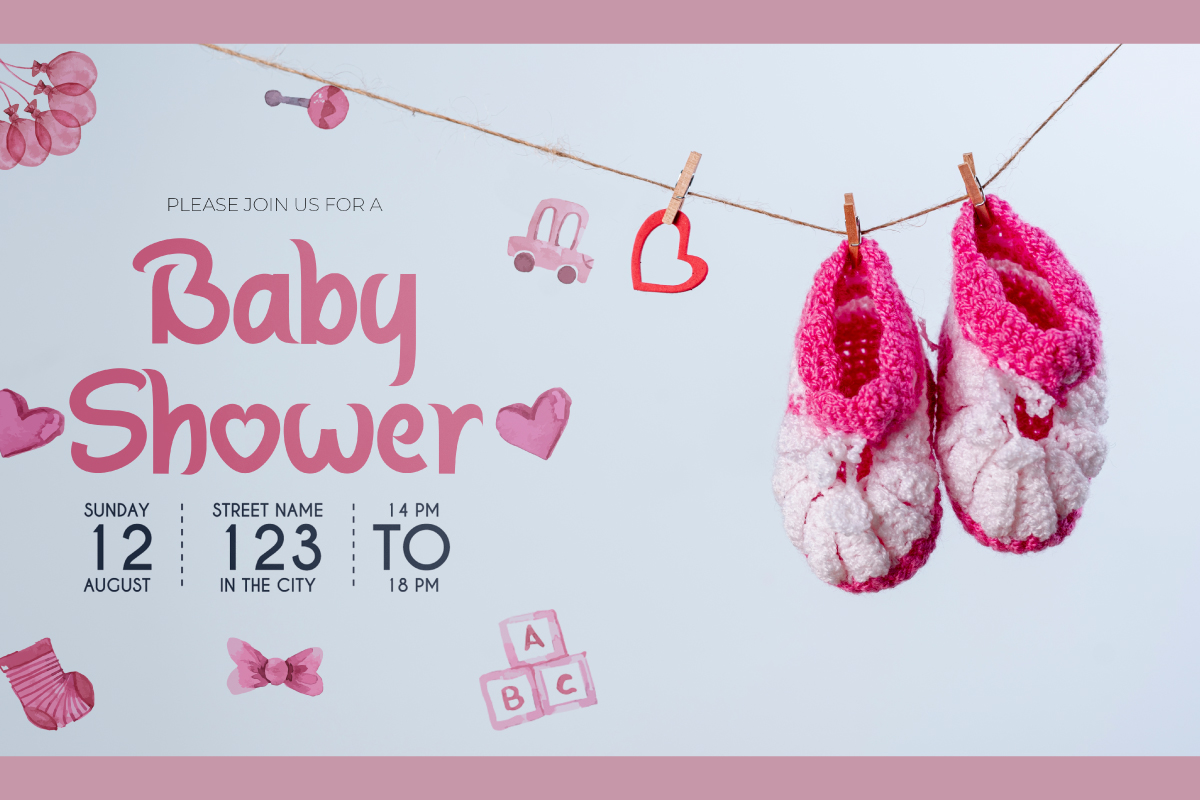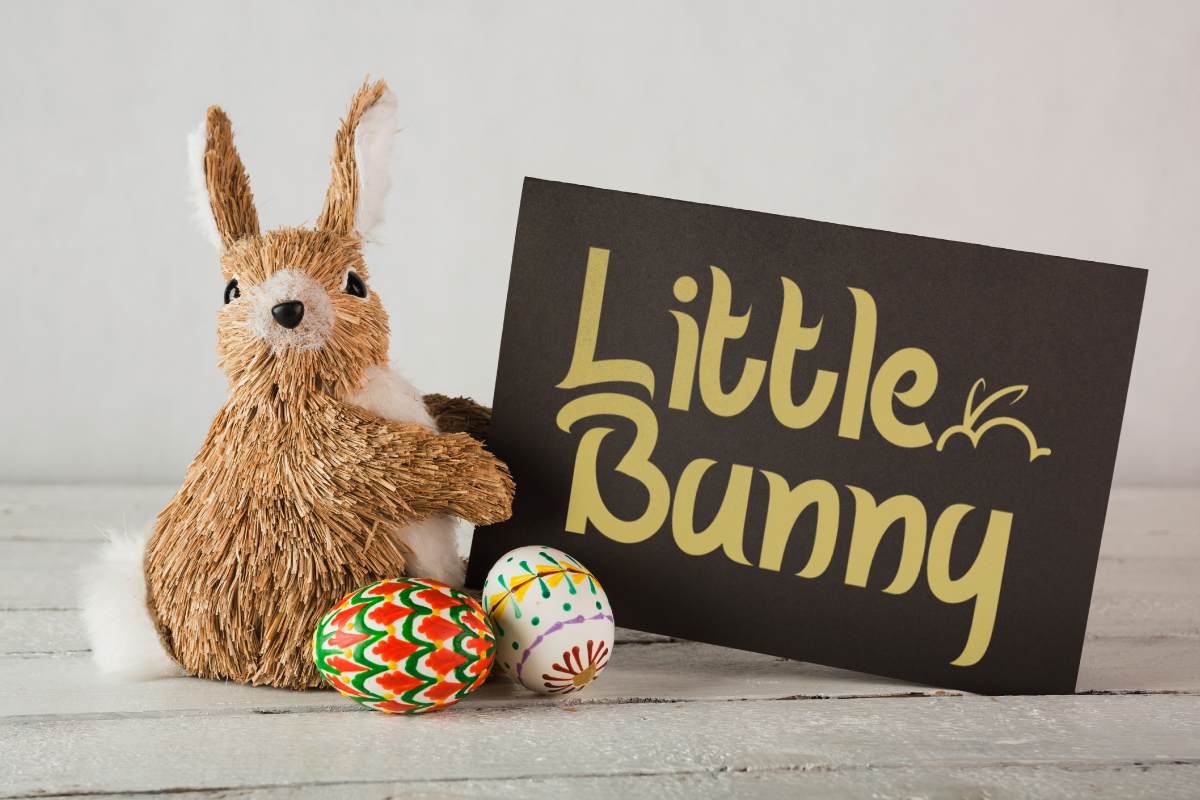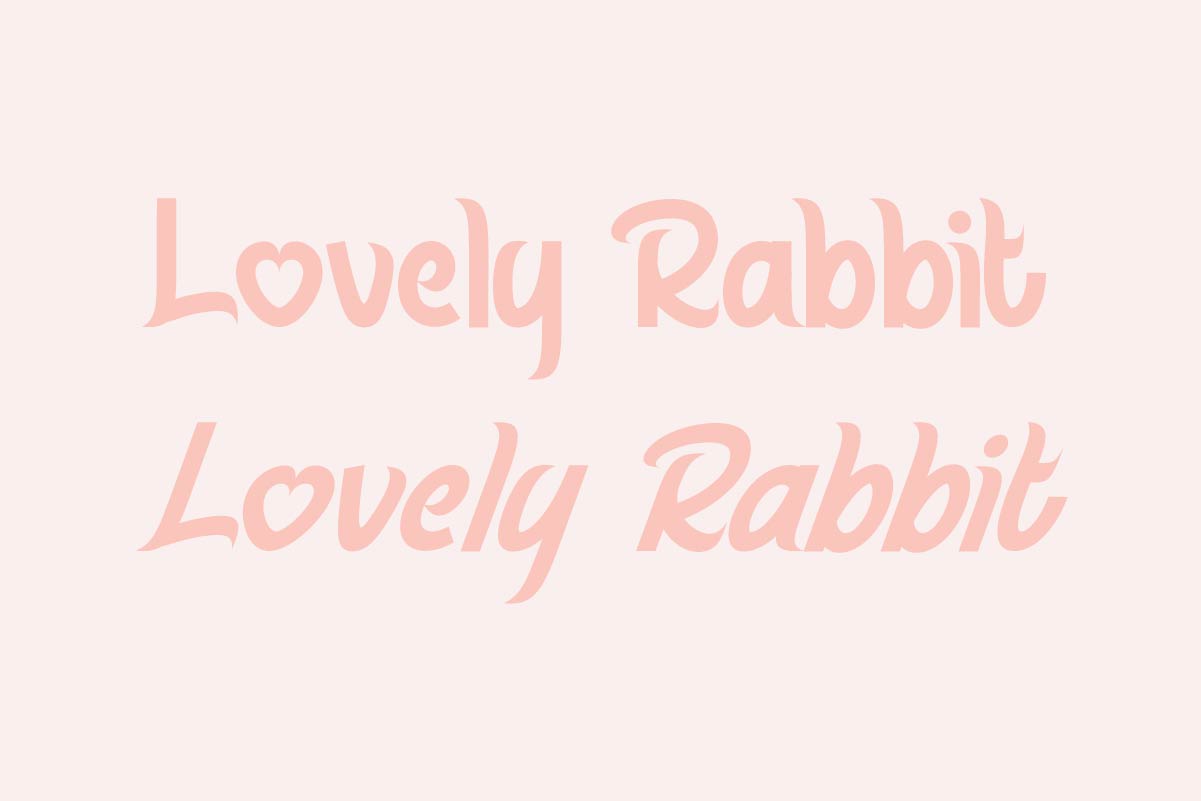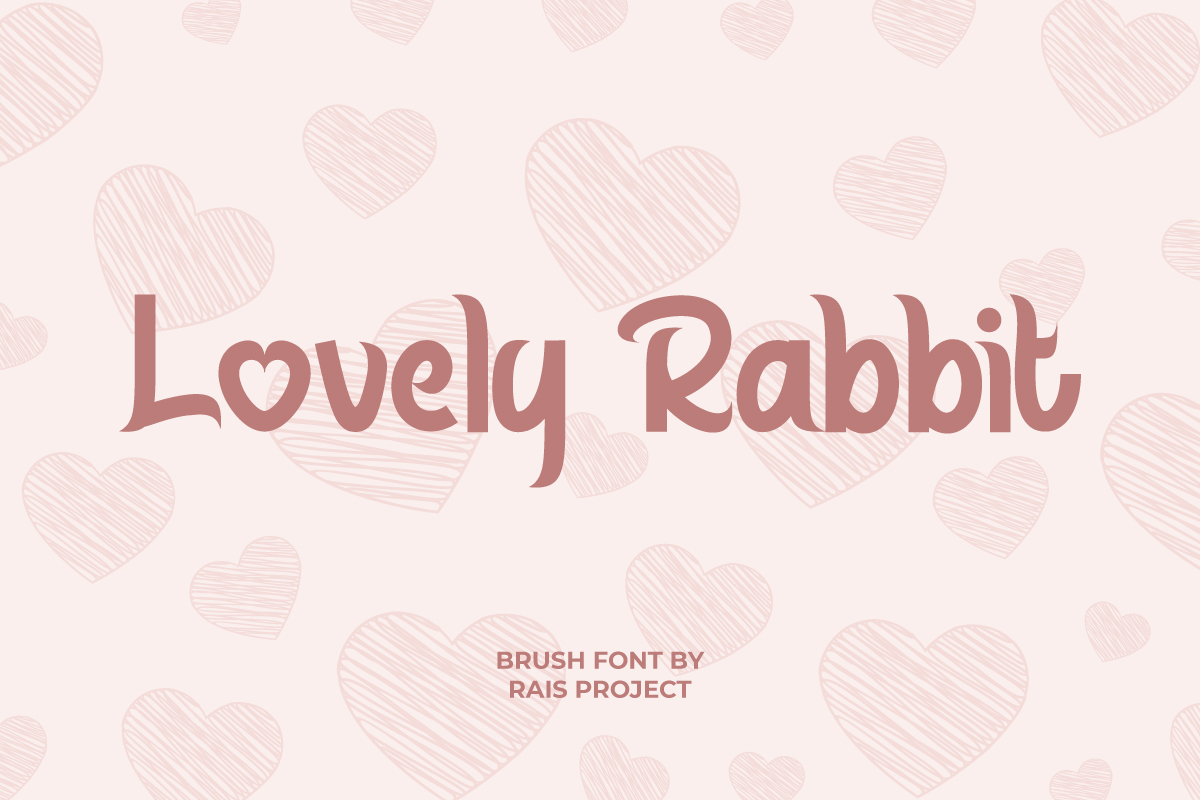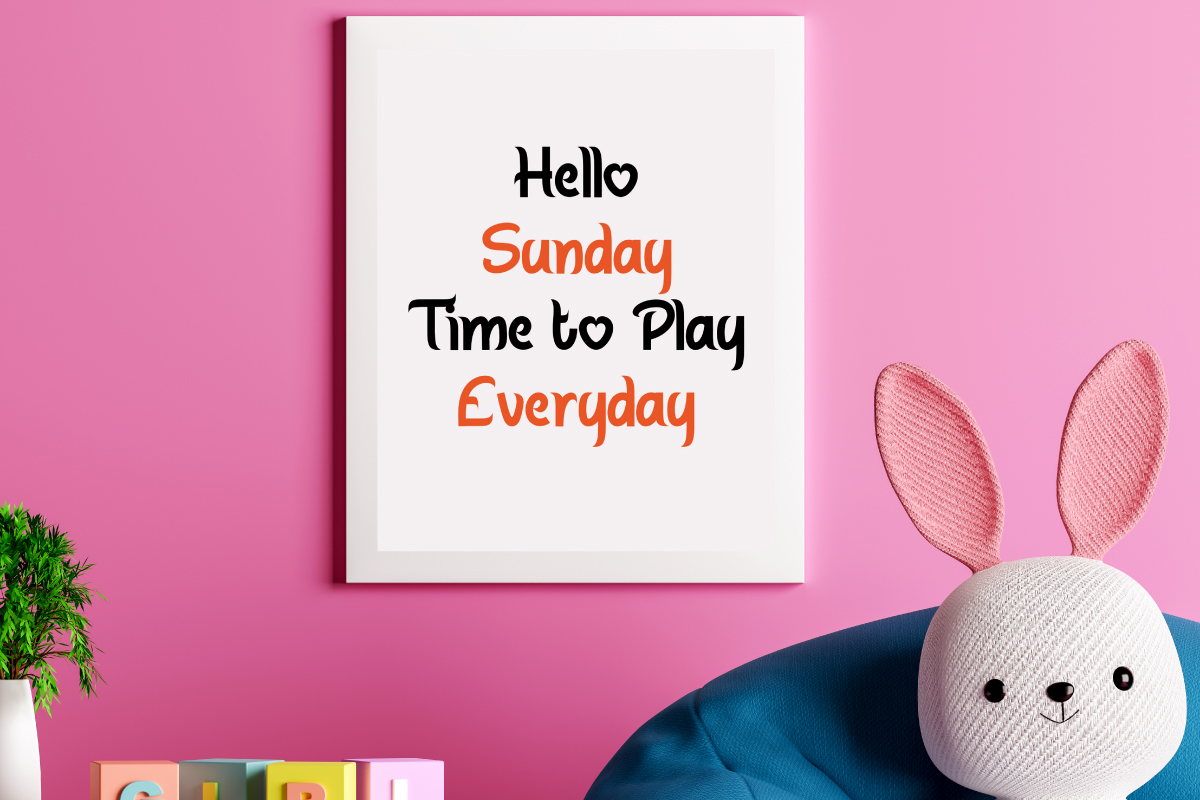
Lovely Rabbit Display Font
This font was made with special fun shape letters to make it standout and exclusive. The font is great for many purposes including : promotion, events, branding, advertising, magazine, invitation, stationery, social media posts, label, or and any projects that need unique strong style. The theme/industries of this font is School, Food and Drinks, Vintage, Kids, Movie, Game, Magazine, Music, Video, Sports, etc